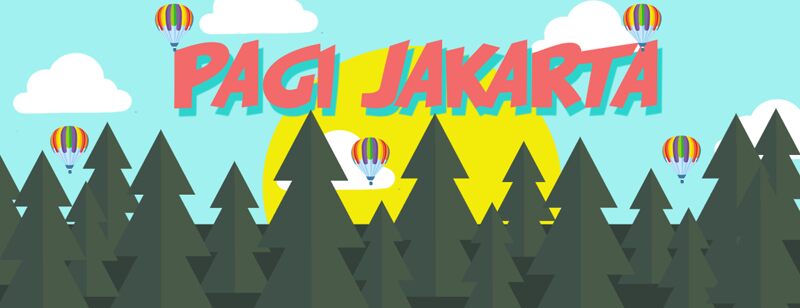
PAGI JAKARTA
Pagi Jakarta is a bold, dynamic display font that exudes a distinct comic-inspired flair. Crafted by The Docallisme - Amry Al Mursalaat, this typeface boasts a captivating, handcrafted aesthetic that immediately commands attention.
The angular, exaggerated letterforms and impactful strokes lend a sense of energy and playfulness, making Pagi Jakarta an ideal choice for headlines, titles, and attention-grabbing design elements. Its versatility spans a multitude of applications, from vibrant branding and packaging to eye-catching editorial layouts and promotional materials.
This font's strong personality and visually striking presence make it a compelling option for designers seeking to infuse their work with a touch of modern, whimsical charm.